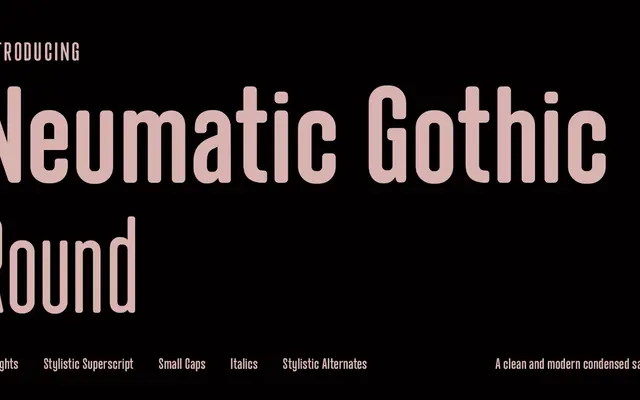
Neumatic Gothic Round
A condensed rounded gothic with a tall cap height, offered in seven weights with obliques and a broad OpenType feature set including small caps and stylistic alternates.
Built for graphic designers who want flexibility in typographic layouts, the family runs from Light to Black with matching obliques across all weights. OpenType features include small caps, small caps from capitals, stylistic alternates, superscript uppercase, circled numbers and multiple stylistic sets. The rounded terminals soften the gothic structure, making it workable at text sizes as well as in large headline settings.
A condensed sans-serif with tall cap height and x-height, sitting in the gothic grotesque tradition with rounded terminals, designed for both headline and text use.